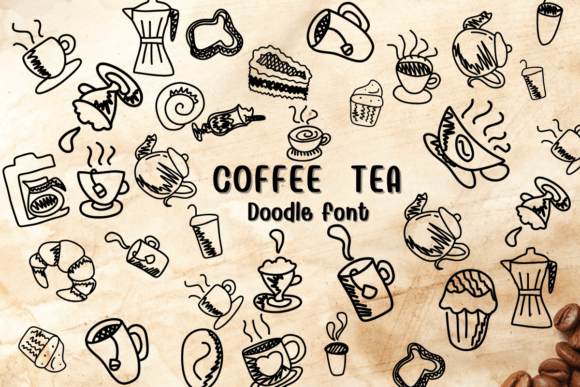
Coffee Tea Font: Elevate Your Creative Projects with a Unique Sketched Theme Style
Coffee Tea Font is a distinctive dingbats font that boasts a charming sketched theme style, perfect for adding a personal touch to various creative projects. Whether you’re designing wedding invitations, DIY crafts, decorations, logos, or exploring other innovative ideas, this font is sure to enhance your work with its unique flair.
What is Coffee Tea Font?
Coffee Tea Font is a type of dingbats font, which means it features symbols and icons rather than traditional alphabet letters. This font is meticulously designed with a sketched theme style, giving it a hand-drawn and artistic appearance. The sketched look adds a touch of elegance and sophistication, making it suitable for a wide range of applications.
Key Features of Coffee Tea Font
- Unique Sketched Style: The font’s sketched theme style sets it apart from more traditional fonts, offering a fresh and creative look.
- Dingbats Design: As a dingbats font, Coffee Tea Font includes a variety of symbols and icons that can be used to enhance your designs.
- Versatility: This font can be used for numerous creative projects, including wedding invitations, DIY crafts, decorations, logos, and more.
- Elegant and Sophisticated: The hand-drawn appearance of the font adds an elegant and sophisticated touch to any project.
Uses of Coffee Tea Font
Coffee Tea Font’s versatility makes it an excellent choice for a variety of creative projects. Here are some of the ways you can use this unique font:
Wedding Invitations
Make your wedding invitations stand out with Coffee Tea Font. The sketched theme style adds a romantic and personal touch, setting the tone for your special day. You can use the font’s symbols and icons to create beautiful and unique invitation designs.
DIY Crafts
Coffee Tea Font is perfect for DIY enthusiasts who want to add a creative flair to their projects. Use the font to create personalized labels, cards, and other craft supplies. The font’s hand-drawn appearance will give your DIY projects a charming and homemade feel.
Decorations
Enhance your home decorations with Coffee Tea Font. You can use the font to create personalized wall art, banners, and other decorative items. The font’s elegant and sophisticated style will add a touch of class to any room.
Logos and Branding
Coffee Tea Font can also be used for logos and branding purposes. The font’s unique sketched style will help your business stand out and create a memorable brand identity. You can use the font’s symbols and icons to create a distinctive logo that reflects your brand’s personality.
Benefits of Using Coffee Tea Font
Using Coffee Tea Font offers several benefits, including:
- Unique Designs: The font’s sketched theme style and dingbats design ensure that your projects will have a unique and creative look.
- Time-Saving: The font’s extensive collection of symbols and icons saves you time and effort in designing your projects.
Choosing the Right Symbols and Icons
Coffee Tea Font includes a wide range of symbols and icons. Choose the ones that fit your project’s theme and style. You can use the font’s symbols and icons to create unique and creative designs.
Coffee Tea Font is a unique and creative dingbats font that can enhance your creative projects with its sketched theme style. Whether you’re designing wedding invitations, DIY crafts, decorations, logos, or exploring other innovative ideas, this font is sure to add a personal touch and make your projects stand out. With its ease of use, versatility, and cost-effectiveness, Coffee Tea Font is an excellent choice for anyone looking to add a creative flair to their designs.
- What is Coffee Tea Font? Coffee Tea Font is a dingbats font with a sketched theme style, featuring symbols and icons.
- What can I use Coffee Tea Font for? You can use Coffee Tea Font for various creative projects, including wedding invitations, DIY crafts, decorations, logos, and more.